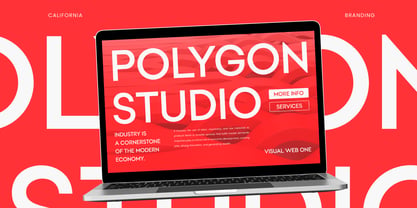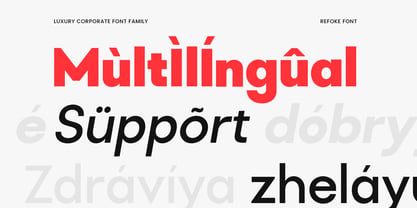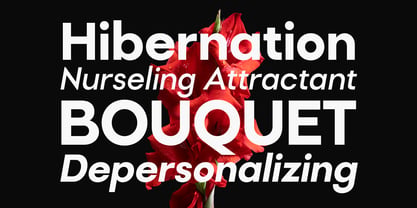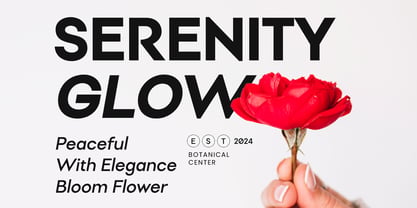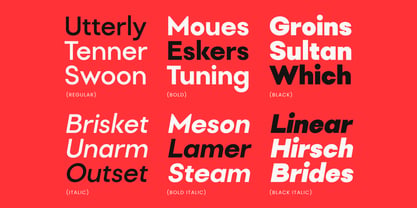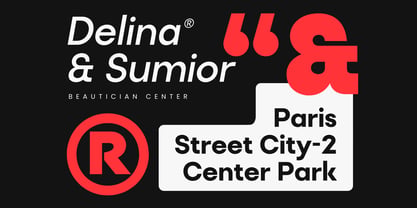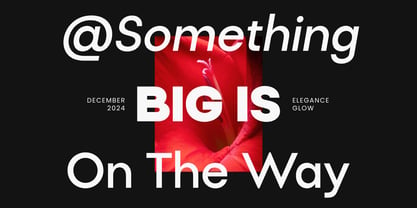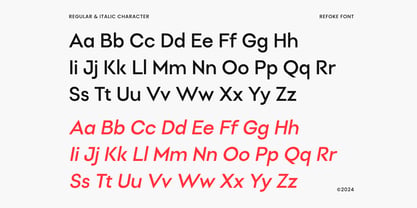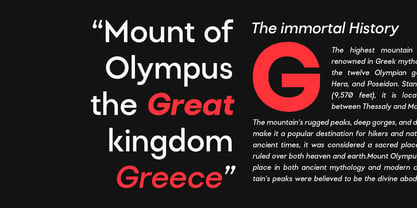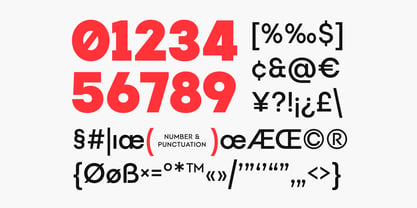
Refoke
von Sensatype Studio
Die Schriftfamilie Refoke wurde von Zamroni Hamzah entworfen und von Sensatype Studio veröffentlicht. Refoke enthält 6 Stile und Familienpaketoptionen. Mehr über diese Familie
Refoke - Luxury Corporate Font Family
Refoke is a luxurious corporate font family designed to bring sophistication and elegance to your branding projects. Inspired by modern, high-end aesthetics, Refoke offers a refined and professional touch, making it ideal for businesses that want to exude confidence and class in their visual identity.
Each character in Refoke is carefully crafted, with sleek ligatures and alternative characters to provide flexibility in your designs. The font combines a modern serif style with a corporate twist, making it suitable for logos, corporate branding, marketing materials, and high-end projects. Whether you are designing for luxury brands, upscale products, or exclusive services, Refoke adds a layer of polish and refinement to any work.
Refoke is perfect for companies looking to make a bold, premium statement. It stands out in corporate identity, editorial design, and even website headers. The font is versatile enough for various projects, ensuring consistency and style in every application.
Refoke Luxury Corporate Font Family Features:
• Luxury Modern Characters Ready
• Unique Punctuation, Number, and Symbol
• Uppercase and Lowercase
• OpenType Features
Refoke Luxury Corporate Font Family available in 6 Style:
• Regular
• Italic
• Bold
• Bold Italic
• Black
• Black Italic
Designer: Zamroni Hamzah
Foundry: Sensatype Studio